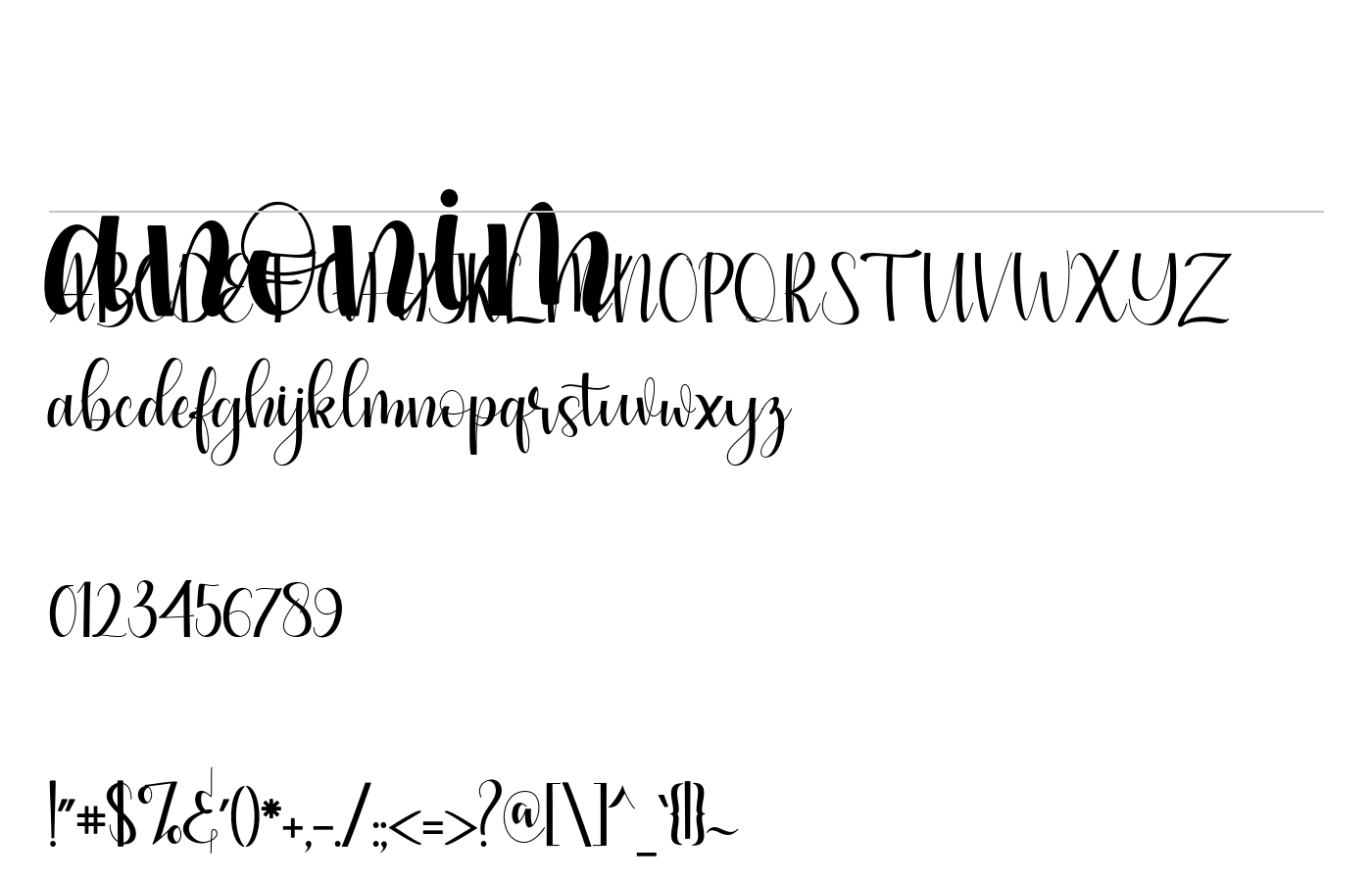
Anonim Font is a delicate script typeface with elegant, flowing strokes and a high contrast between thin and thick lines, giving it a graceful, hand-lettered feel. Its slender letterforms and decorative swashes make it perfect for stylish branding, invitations, or feminine editorial projects where a touch of sophistication and charm is desired. This font works best in headlines or display settings where its intricate details can shine without compromising readability.
anonim Font
About anonim Font
| Font family | anonim Font |
| Designer | Zulkhairilettering |